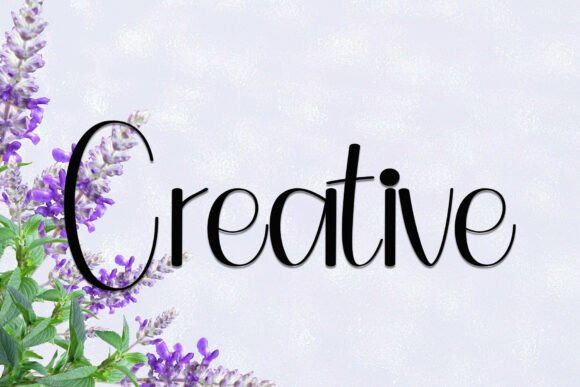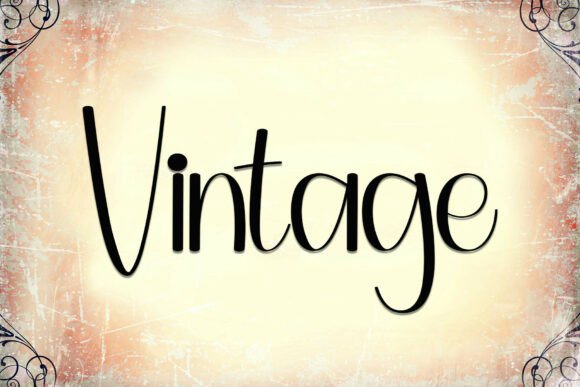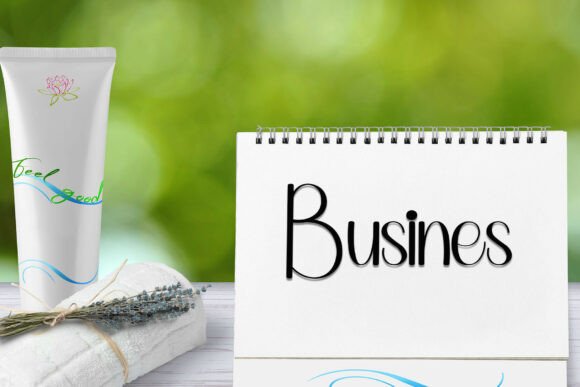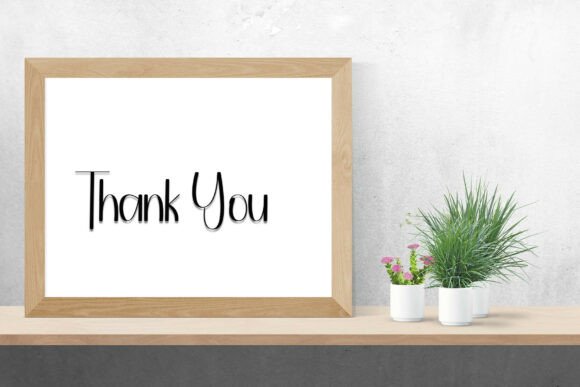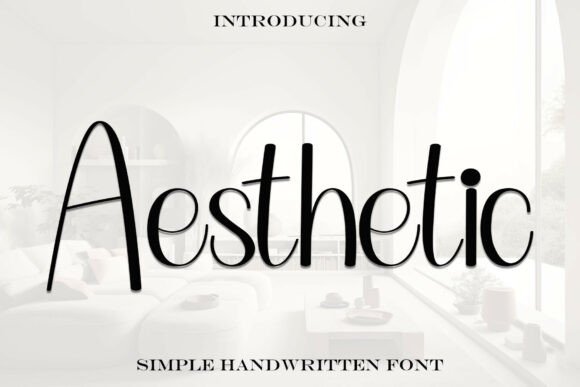
Aesthetic Font: Elevate Your Design with Timeless Elegance
In the world of typography, fonts play a crucial role in conveying the tone and personality of a design. For designers and crafters seeking to add a touch of sophistication and elegance to their projects, the Aesthetic Font is an excellent choice. This trendy handwritten font boasts a contemporary atmosphere and impeccable form, inspired by timeless classic calligraphy.
The Inspiration Behind Aesthetic Font
Aesthetic Font draws inspiration from traditional calligraphy, with a modern twist. Its elegant strokes and refined lines evoke a sense of luxury and refinement, making it perfect for designs that require a high-end feel. The font’s creator aimed to craft a typeface that would bring a sense of sophistication and poise to various design projects, from branding and advertising to packaging and digital media.
Key Features of Aesthetic Font
- Handwritten with a personal touch: Aesthetic Font features a handwritten style with a personal touch, giving it a unique and organic feel.
- Contemporary atmosphere: The font’s modern design ensures it fits seamlessly into contemporary designs, while its classic inspiration provides a timeless appeal.
- Impeccable form: Aesthetic Font boasts impeccable form, with clean lines, balanced proportions, and a clear structure.
- Elegant and refined: The font’s elegant strokes and refined lines make it perfect for designs that require a touch of sophistication.
Use Cases for Aesthetic Font
Aesthetic Font is versatile and can be used in a variety of design projects, including:
- Branding and logos: Add a touch of elegance to your brand’s identity with Aesthetic Font.
- Advertising and marketing materials: Use the font to create eye-catching ads, brochures, and flyers that exude sophistication.
- Packaging design: Elevate your product packaging with Aesthetic Font, perfect for luxury goods and high-end products.
- Digital media: Use the font in your website designs, social media graphics, and email marketing campaigns to create a cohesive and refined visual identity.
Tips for Using Aesthetic Font Effectively
To get the most out of Aesthetic Font, consider the following tips:
- Pair with contrasting fonts: Combine Aesthetic Font with a contrasting font to create visual interest and hierarchy.
- Use it sparingly: Aesthetic Font is best used sparingly, as a headline or title font, to maximize its impact.
- Experiment with colors: Try pairing Aesthetic Font with a range of colors to find the perfect combination that suits your design.
Aesthetic Font is a stunning handwritten font that brings a touch of elegance and sophistication to any design project. Its timeless classic calligraphy inspiration, combined with its modern design, makes it a versatile and effective choice for designers and crafters. By incorporating Aesthetic Font into your designs, you’ll be able to create visually stunning and refined projects that exude luxury and refinement.